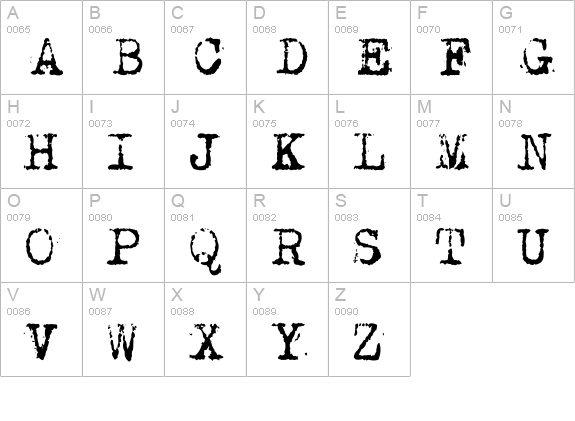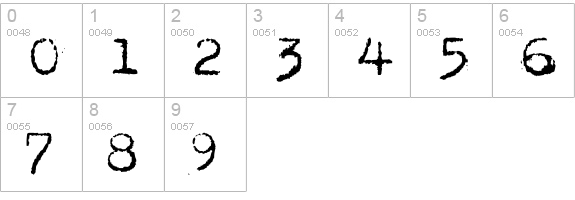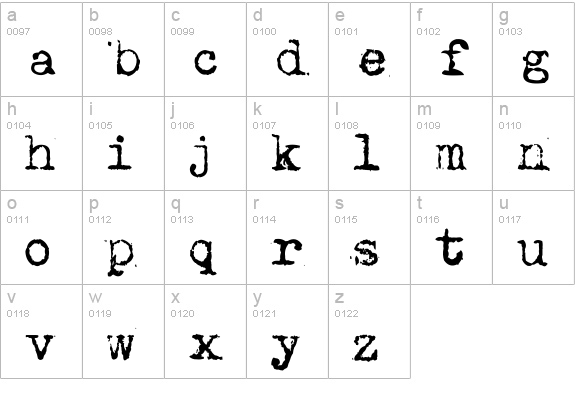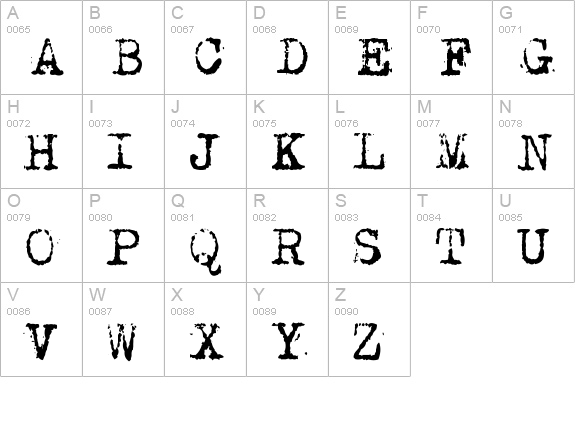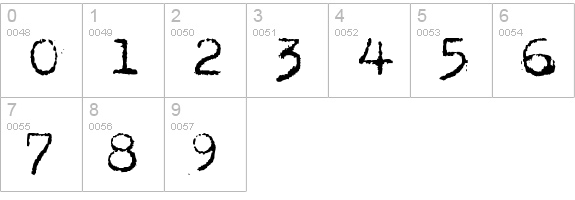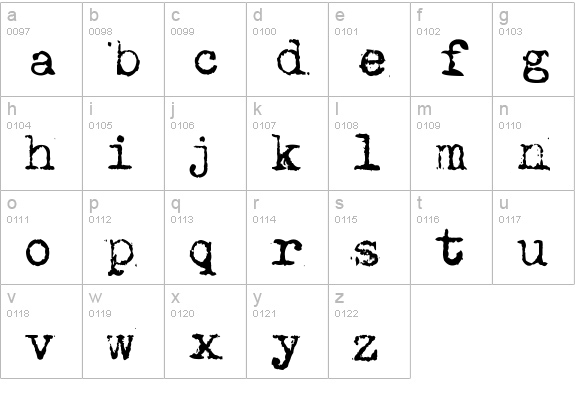
MaszynaAEG Font Details
MaszynaAEG font is a stunning display typeface that effortlessly captures the essence of vintage typewriter fonts. Its unique and intricate design pays homage to the classic era of mechanical typewriters, evoking a sense of nostalgia and authenticity. The sharp, clean lines combined with the slightly uneven strokes create a distinct aesthetic that is both elegant and raw. This font is perfect for a wide range of creative projects, such as branding, headlines, posters, and packaging. Its versatility allows it to seamlessly blend into various design styles, whether it be modern or retro-themed projects. The MaszynaAEG font truly stands out and adds a touch of sophistication to any design it is applied to. One of the most appealing aspects of the MaszynaAEG font is that it is freely available to download at FontsMarket.com. This means that designers and enthusiasts alike can access this remarkable font without any cost. The availability of this font for free ensures that it can be used by a wide audience, allowing for greater creativity and exploration in design projects. MaszynaAEG font is a true gem for typographic enthusiasts, offering a perfect combination of vintage charm and contemporary appeal. Its flawless execution and attention to detail make it an excellent choice for those seeking to add a touch of elegance and uniqueness to their designs, all while being easily accessible and free to download.